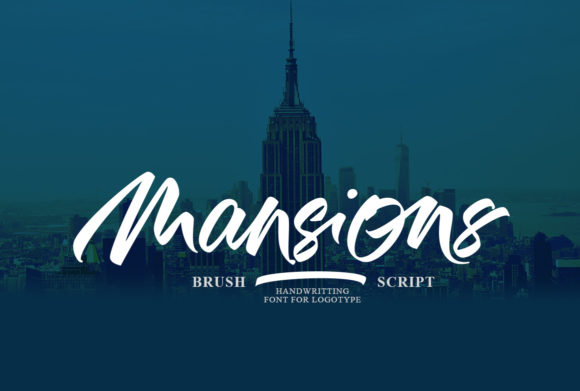
Mansions Font: A Soft and Modern Brush-Style Handwritten Font
In the world of typography, fonts play a crucial role in conveying messages, expressing emotions, and creating visual identities. Among the numerous font styles available, handwritten fonts have gained immense popularity for their unique and personal touch. One such font that has caught the attention of designers and typography enthusiasts is the Mansions Font. In this article, we’ll explore the features, characteristics, and uses of Mansions Font, a soft and modern brush-style handwritten font that exudes contemporary coolness.
What is Mansions Font?
Mansions Font is a brush-style handwritten font designed to provide a soft and modern look to various design projects. Its unique blend of elegance and casualness makes it an ideal choice for designers seeking a font that can add a touch of sophistication and personality to their work.
The font features smooth, flowing lines and subtle variations in line width, giving it a natural and hand-crafted appearance. The letters are carefully designed to be highly legible, making Mansions Font suitable for use in a wide range of applications, from digital media to print materials.
Key Features of Mansions Font
- Soft and Modern Design: Mansions Font boasts a soft and modern design that is perfect for creating visually appealing designs.
- Brush-Style Handwritten: The font features a brush-style handwritten look, which gives it a unique and personal touch.
- Highly Legible: The letters are carefully designed to be highly legible, making it suitable for use in various applications.
- Elegant and Casual: Mansions Font strikes a perfect balance between elegance and casualness, making it versatile for different design projects.
Get Inspired by its Contemporary Coolness!
Mansions Font is an excellent choice for designers seeking inspiration for their next project. Its contemporary coolness can be incorporated into various design applications, including:
- Logos and Branding: Use Mansions Font to create unique and memorable logos that reflect your brand’s personality.
- Digital Media: The font is perfect for creating engaging social media graphics, blog posts, and website content.
- Print Materials: Mansions Font can be used for designing brochures, flyers, posters, and business cards that require a personal touch.
- Packaging Design: Add a touch of elegance and sophistication to your product packaging with Mansions Font.
Tips for Using Mansions Font
- Pair with Other Fonts: Experiment with pairing Mansions Font with other fonts to create a unique and visually appealing typography.
- Adjust Font Size and Color: Adjust the font size and color to suit your design requirements and ensure optimal legibility.
- Use in Combination with Images: Combine Mansions Font with high-quality images to create stunning visual designs.
Mansions Font is a versatile and stylish brush-style handwritten font that offers a soft and modern look. Its unique features, elegance, and casualness make it an excellent choice for designers seeking to add a personal touch to their designs. With its high legibility and contemporary coolness, Mansions Font is perfect for various design applications, from logos and branding to digital media and print materials. Get inspired by its unique style and incorporate Mansions Font into your next design project!